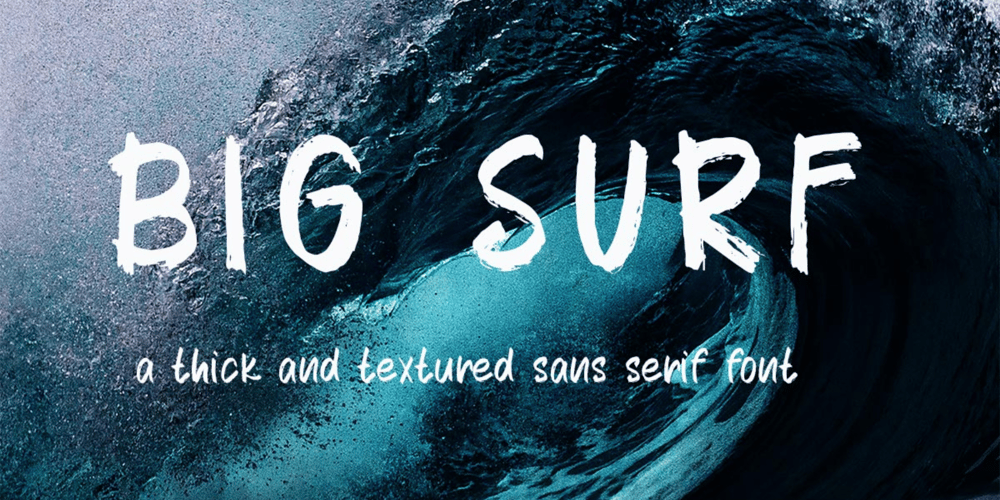
Big Surf
Big Surf font
Big Surf Font Family was designed by Ira Natasha and published by Ira Natasha. Big Surf contains 1 styles and family package options. Introducing Big Surf, a bold sans-serif font with rough, textured edges designed for projects that demand an artistic, hand-crafted feel. The irregular, rugged texture of each letter adds a layer of authenticity and rawness, making it perfect for branding, posters, product packaging, and social media graphics. The rough edges create a worn, distressed look while maintaining a clean, minimalist structure that balances modern design with a vintage touch. Big Surf offers both uppercase and lowercase letters, numerals, and punctuation, making it versatile for any creative endeavor. Ideal for projects seeking a mix of boldness, grit, and clarity.